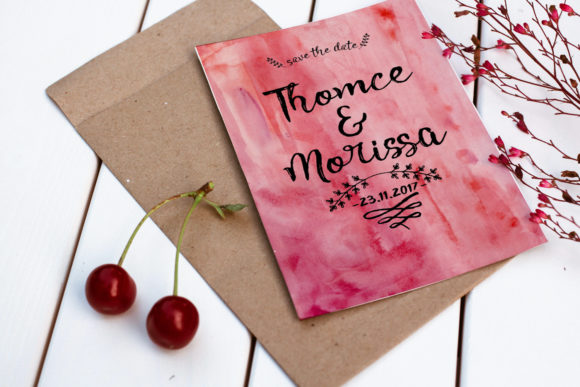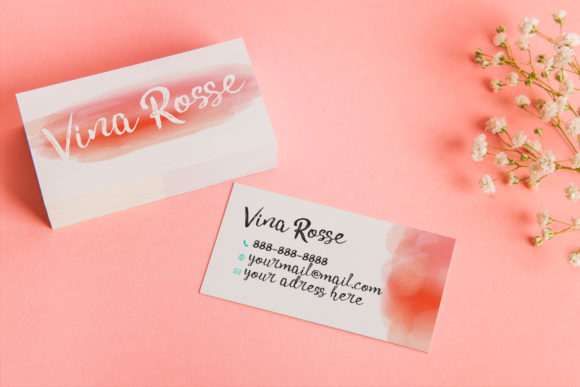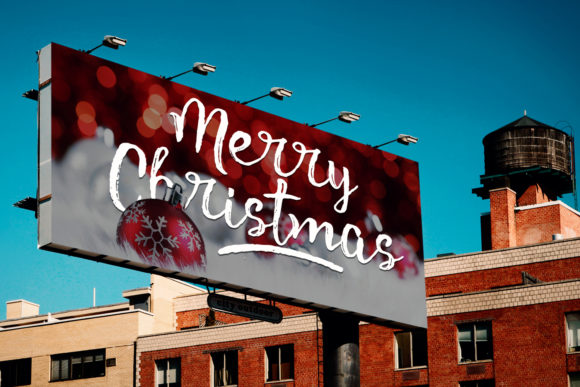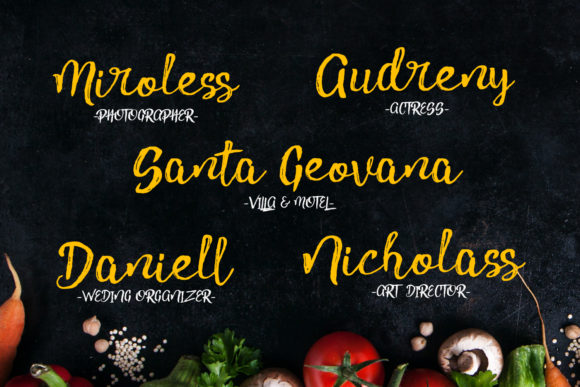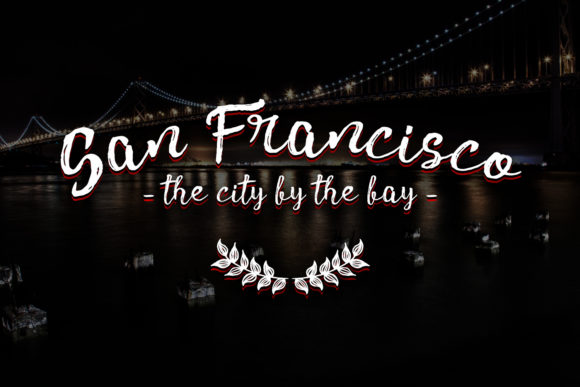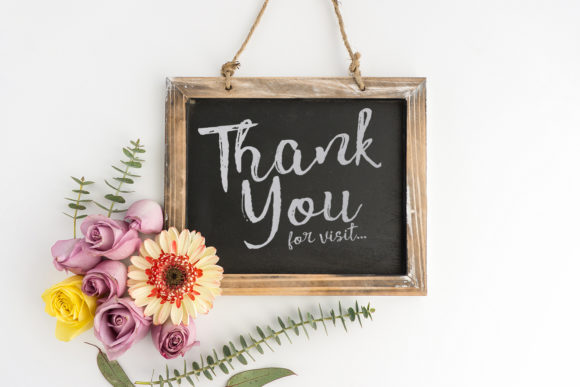
Pink Gladiolus Font
About Pink Gladiolus Font
Pink Gladiolus is a sweet and bold script with a unique style. It will turn any design project into a true standout.